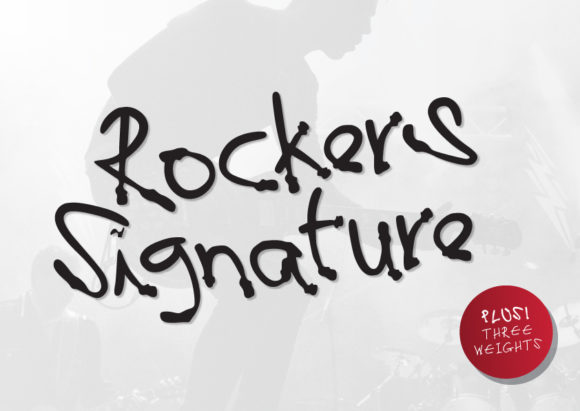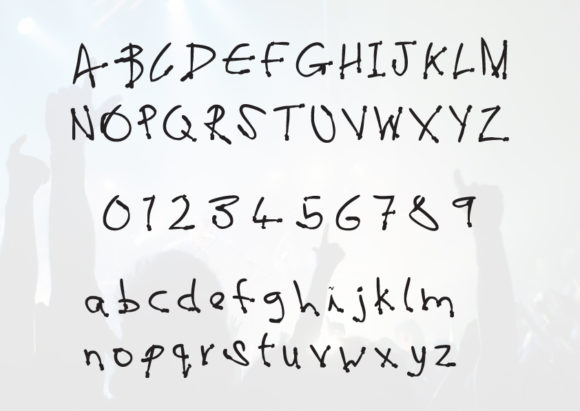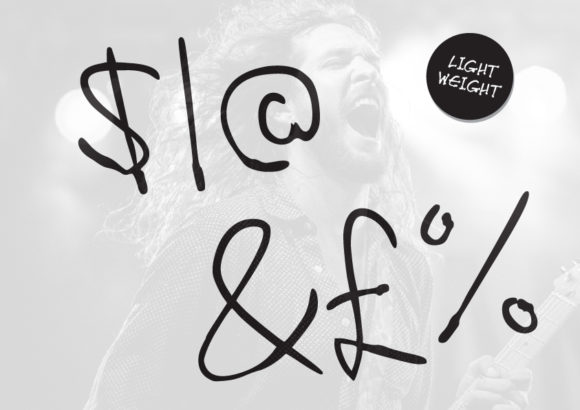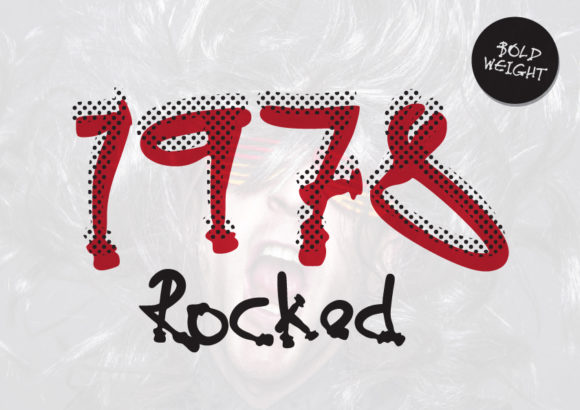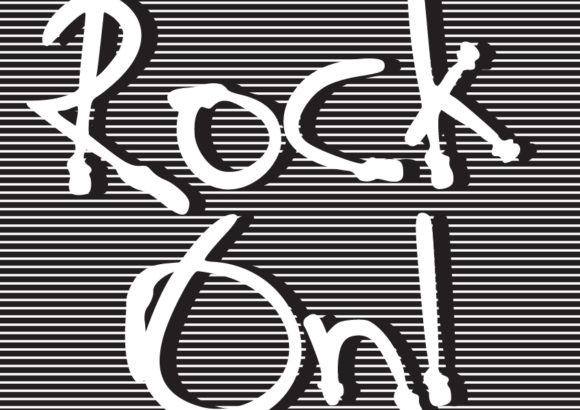
Rockers Font
About Rockers Font
This wonderfully fun and raw script will unleash the rockstar in us all! Each letter features bags of personality, with its messy ink style! Use it and make any design idea stand out!